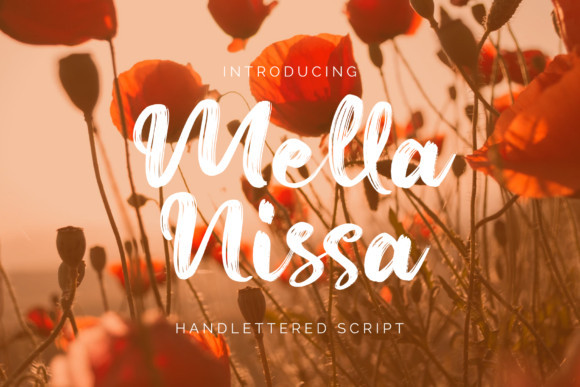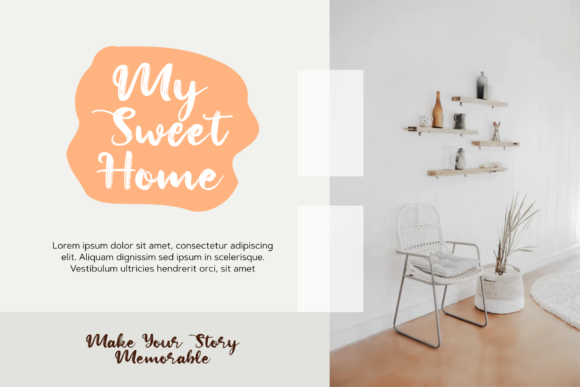
Mella Nissa Font
Mella Nissa is a sweet and lovely handwritten font, ideal for taking wedding invitations, product labels, fashion and clothing products, and a lot of other design ideas to the next level!